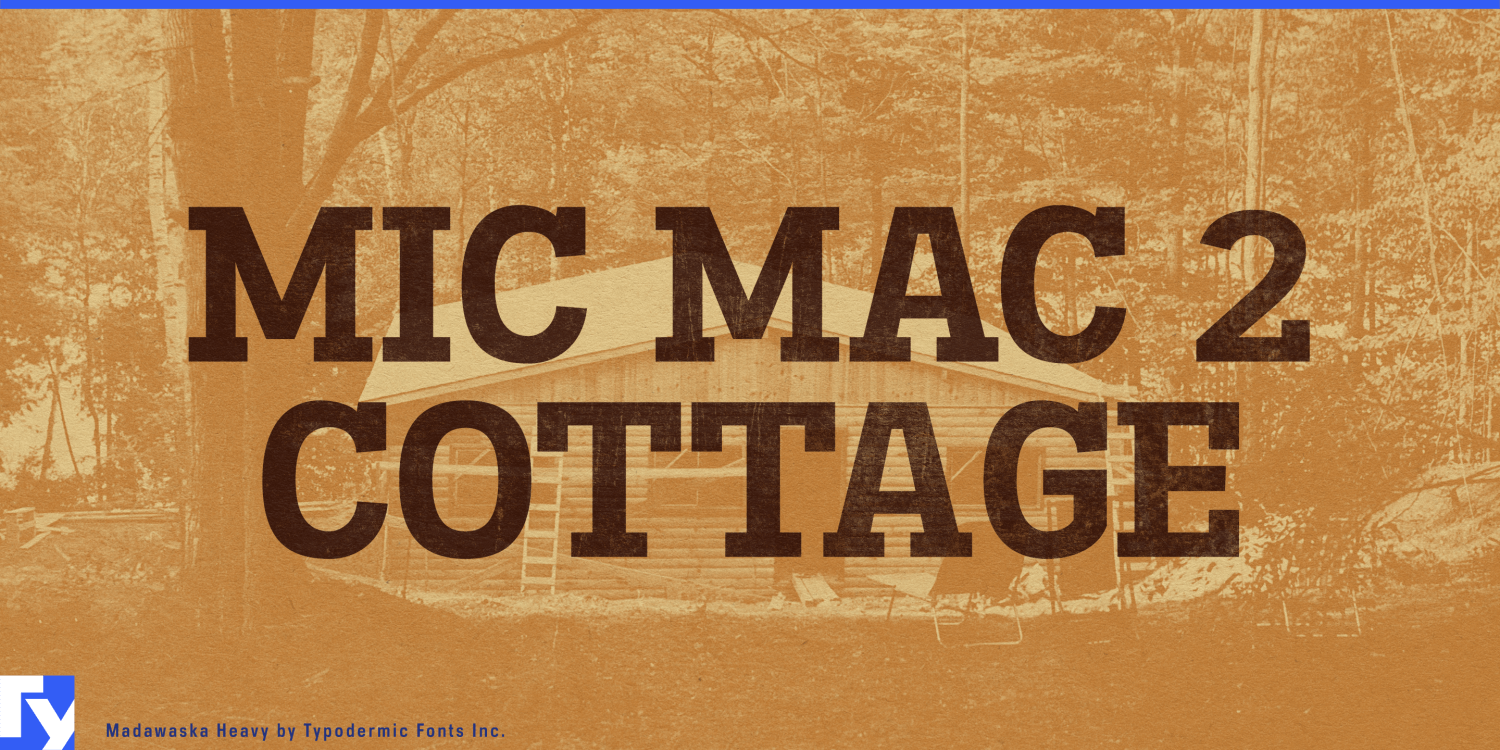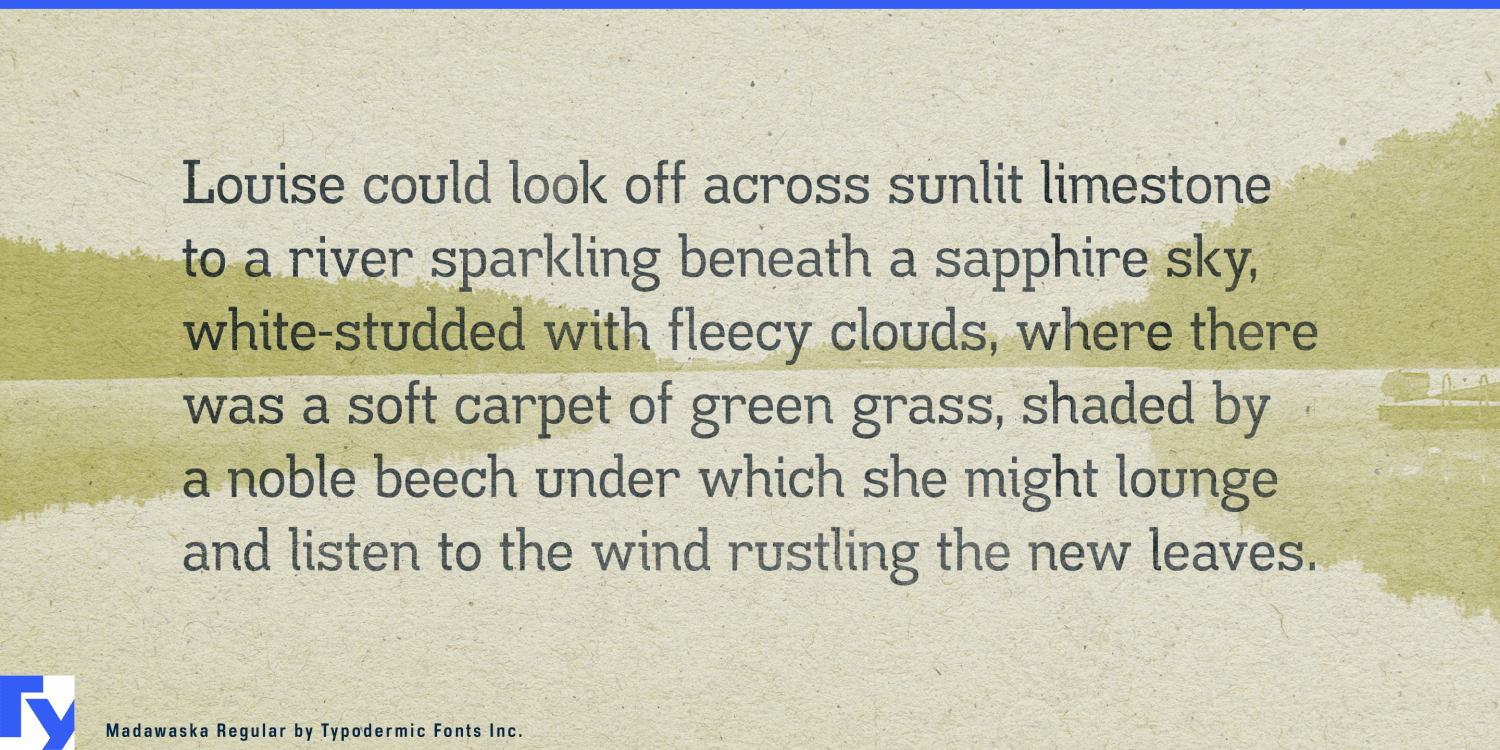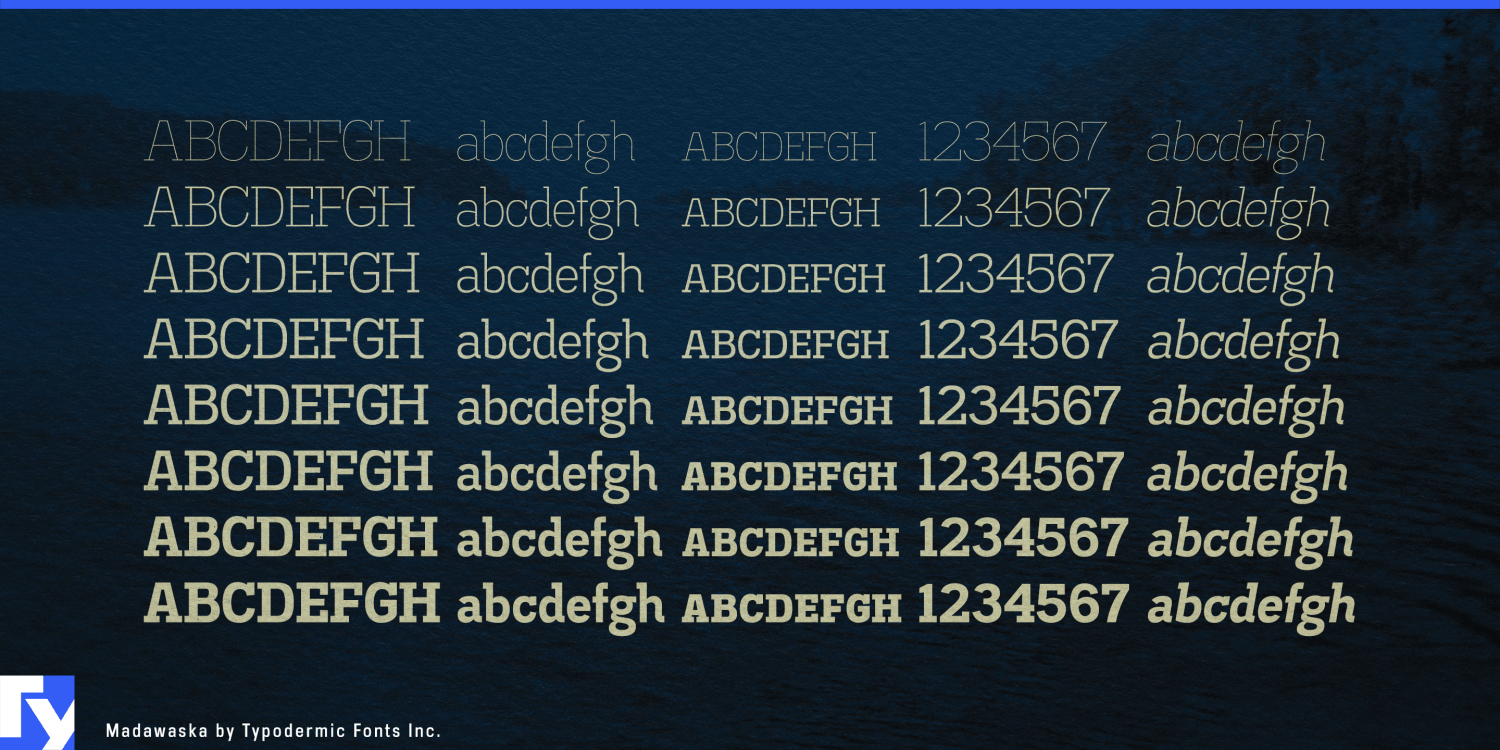
About Madawaska
Forged in the untamed wilderness of Canada, Madawaska stands as a testament to the raw power and enduring spirit of the North. This commanding slab-serif typeface doesn’t just demand attention—it seizes it with the tenacity of a seasoned trapper…